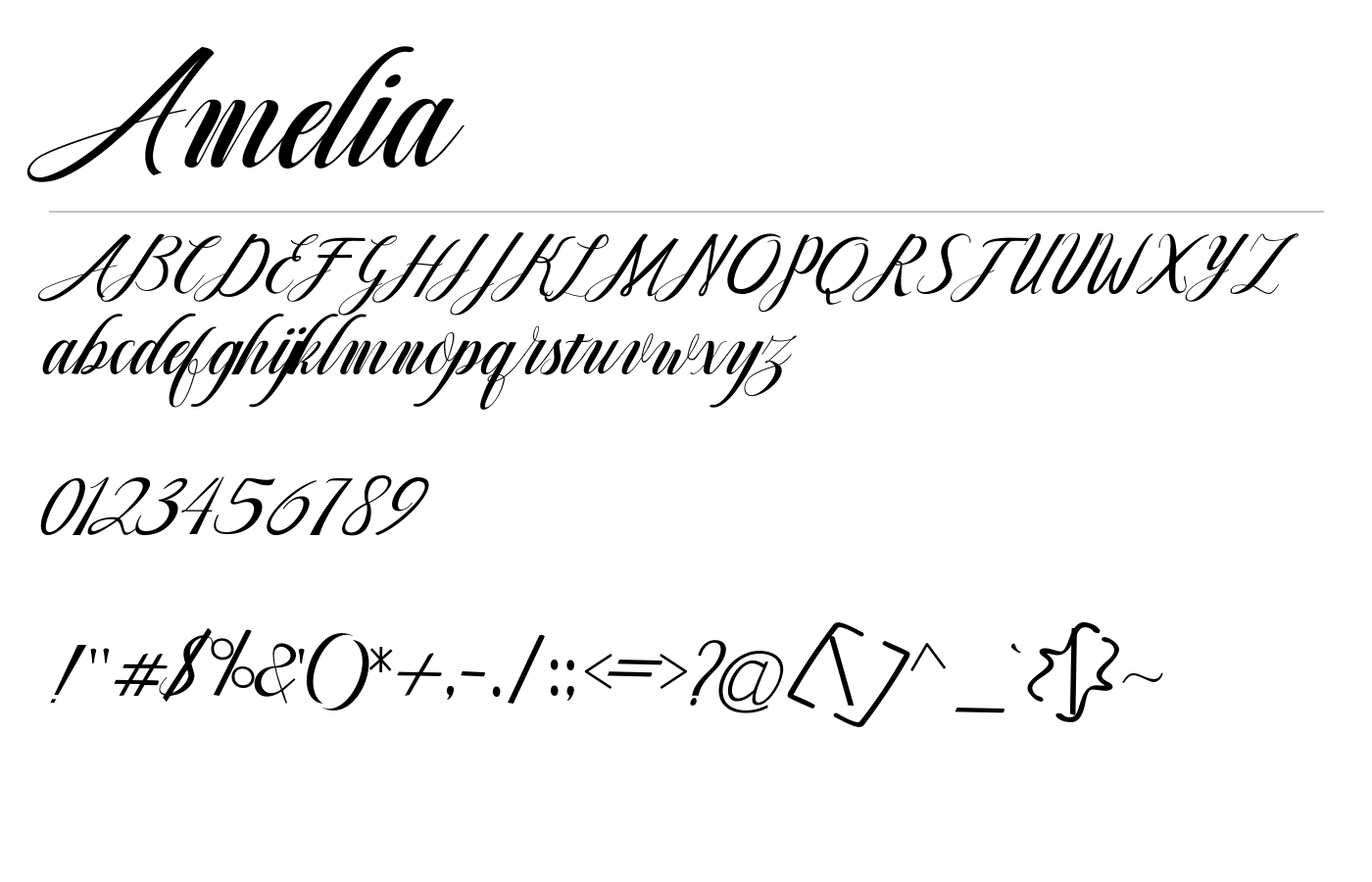
Amelia is an elegant script font characterized by its flowing, calligraphic style with high contrast between thick and thin strokes. Its slender, graceful letterforms and refined curves make it ideal for luxurious branding, invitations, and sophisticated headlines where a touch of classic charm and femininity is desired. This font conveys a sense of timeless beauty and refinement, perfect for fashion, wedding, and upscale editorial uses.
Amelia Font